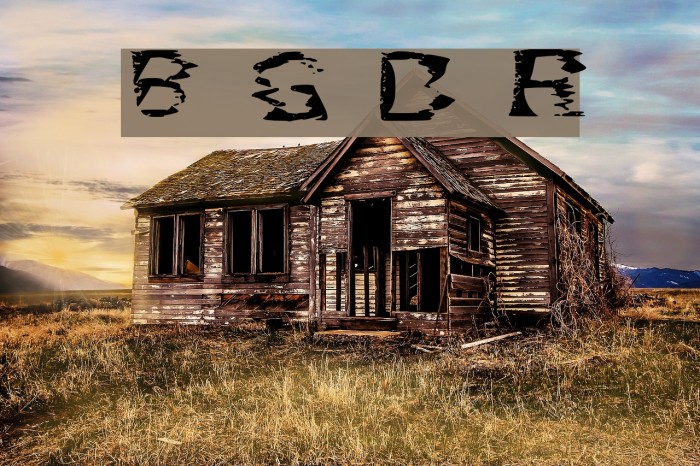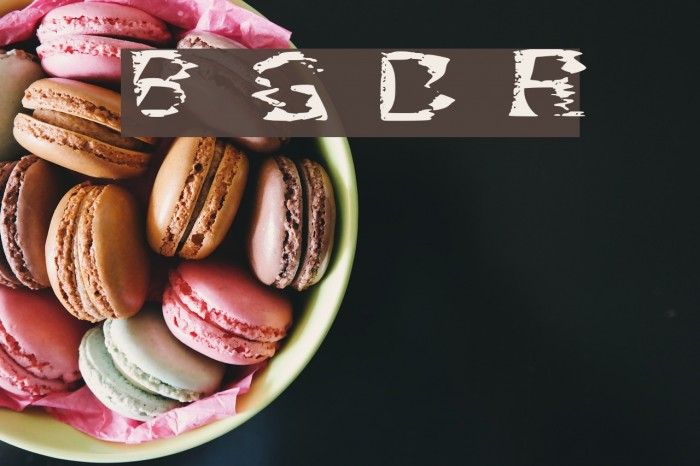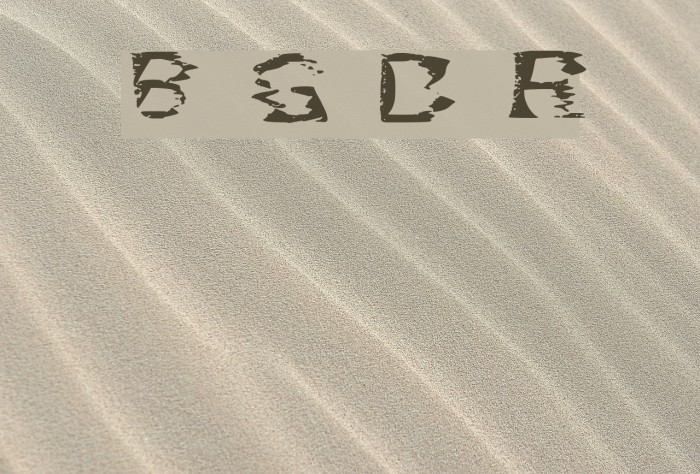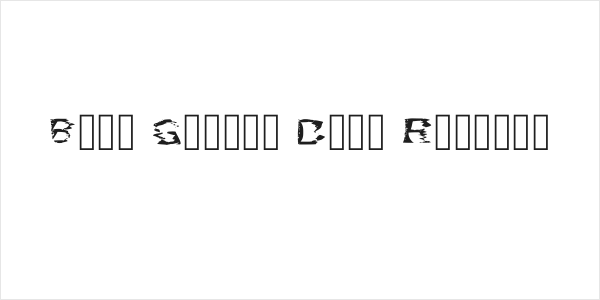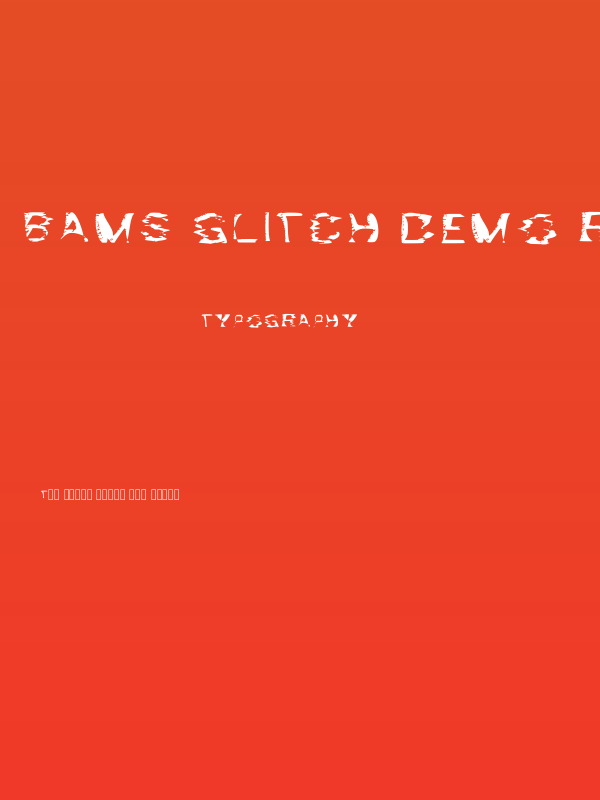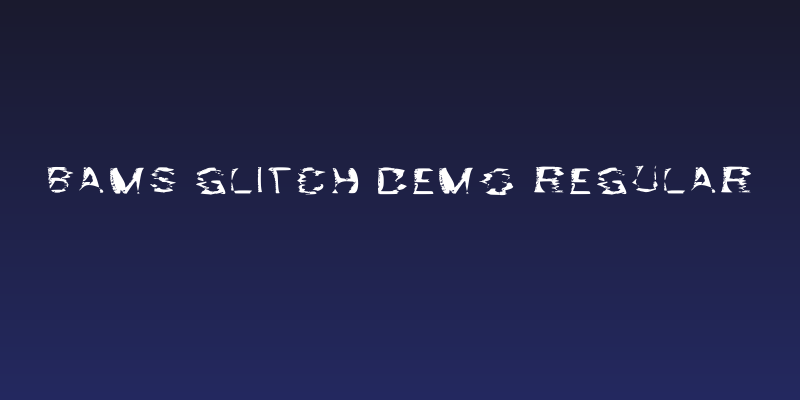
Bams Glitch Demo Regular Font
Bams Glitch Demo Regular Description
This font features a unique glitch effect that gives each letter a distorted and fragmented appearance. The uppercase letters are bold and striking, with irregular edges that create a sense of movement and chaos. The design is reminiscent of digital errors or static interference, making it ideal for projects that require a modern, edgy aesthetic. The font's style is highly decorative, focusing on visual impact rather than readability, which makes it suitable for creative and experimental designs.
| Proposed Projects | Ideal for digital art, music album covers, video game graphics, and edgy branding projects. |